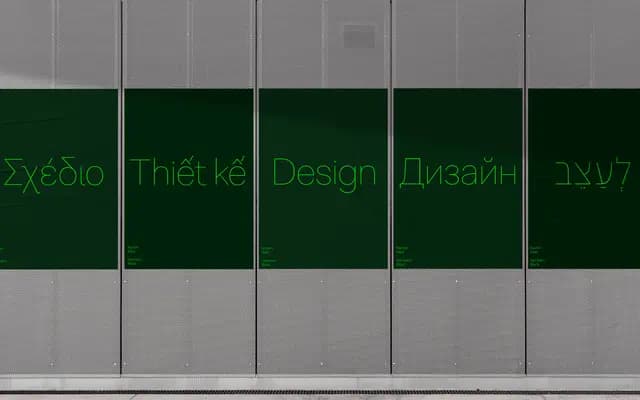
Nurom Next
The Northern Block · 2017
A contemporary grotesque evolved from the 2017 Nurom typeface, now spanning 20 weights with broad multilingual support across Latin, Cyrillic, Greek, Hebrew and Vietnamese.
An update to The Northern Block's original Nurom, this release draws on early grotesque conventions while avoiding strict historical revival in favour of clean lines and balanced proportions. The family ships with over 1,000 characters and a comprehensive set of OpenType features including scientific forms, tabular and proportional figures, case forms and discretionary ligatures. Extended language support across Cyrillic, Greek, Hebrew and Vietnamese makes it a practical choice for internationally facing work.
Described by the foundry as a contemporary sans-serif influenced by early grotesque styles, avoiding strict historical revival in favour of a fresh interpretation of the grotesque tradition.